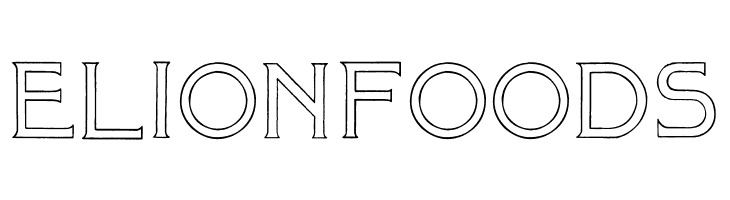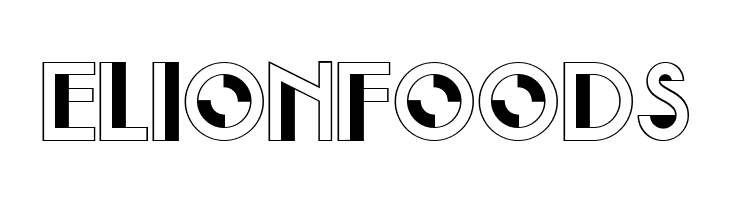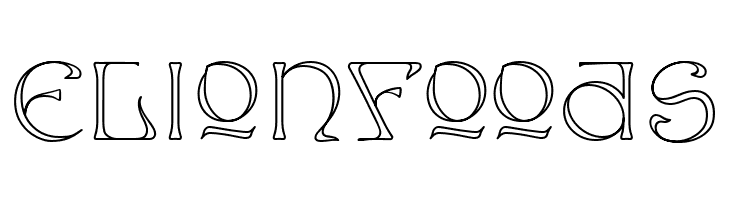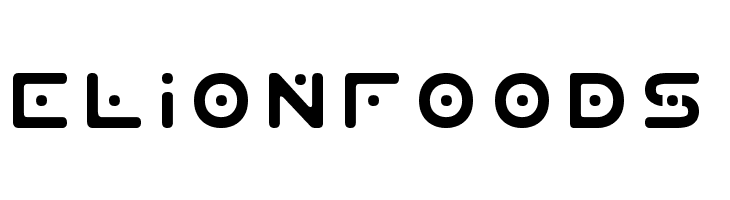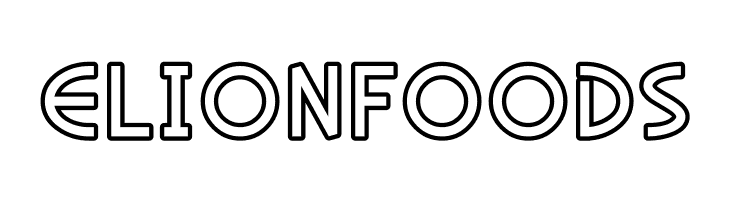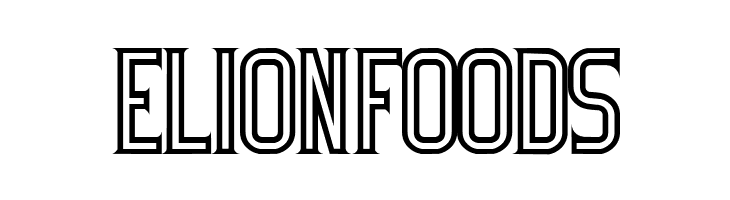
( Fonts by Paul Lloyd )
A modern, outline-style font with geometric and artistic characteristics.
( Fonts by Nick Curtis - www.nicksfonts.com )
A bold, geometric font with a mix of solid and outlined elements, ideal for decorative use.
A futuristic, geometric font with bold, rounded letterforms and unique cutouts.
( Fonts by ShyFonts )
A futuristic, geometric oblique font with outlined characters and a sleek, modern aesthetic.
( Fonts by ShyFonts )
A futuristic, geometric, and oblique font with outlined characters.
( Fonts by ShyFonts )
A bold, geometric font with a futuristic, outlined design.
( Fonts by ShyFonts )
A bold, futuristic outline font with geometric shapes and a modern aesthetic.
( Fonts by Daniel Gauthier )
A bold, geometric font with outlined characters and a modern style.